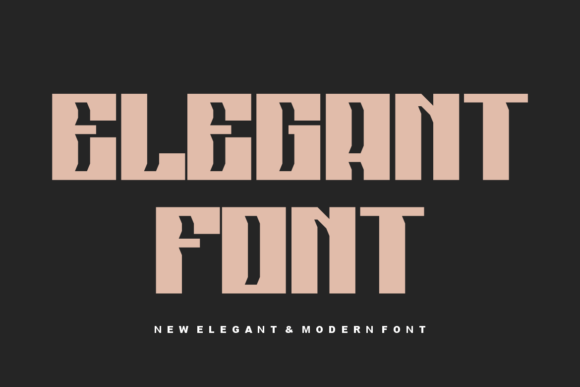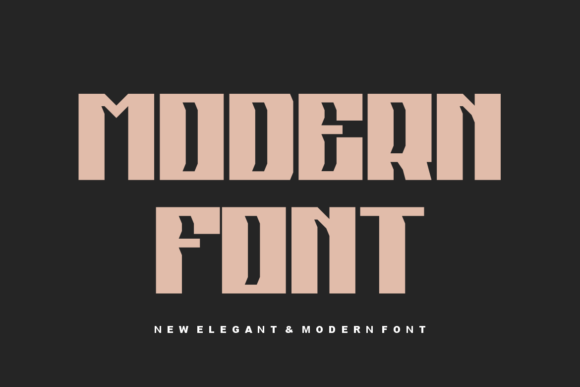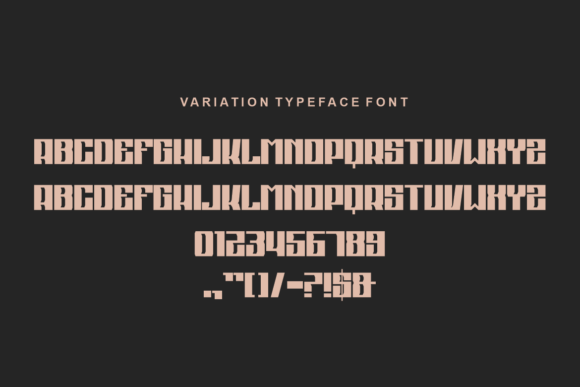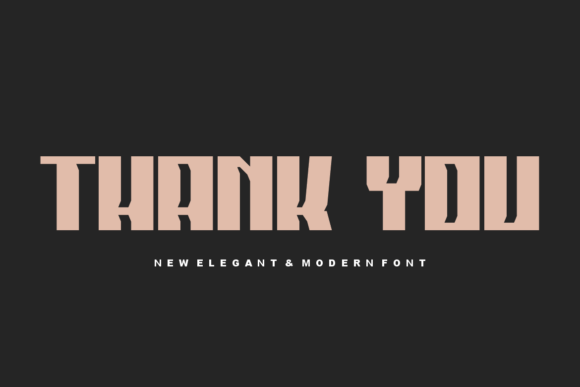
Introduction to Nekager Font
Nekager – Modern, bold, and authentic sans serif font.
The font is suitable for any branding project like logo, t-shirt printing, esports, and many more It will look outstanding in a wide range of contexts.
Key Features of Nekager Font